For digital designs, a mid-century modern vibe is all about accessibility, functionality, and fluidity. We are all fascinated by that indescribable nostalgia for past times, so today we decided to create a collection of mid century fonts that will definitely be useful for every designer. All of these fonts has been crafted by professional designers and are in the best quality. So why not to try them and enjoy.
Mid Century Typeface
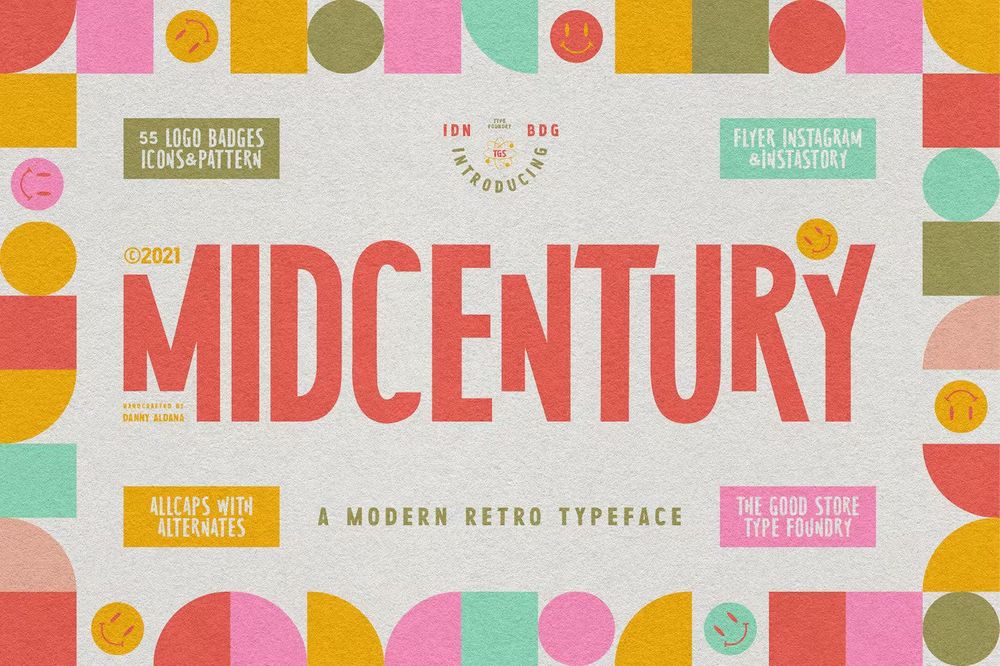
It is an allcaps modern mid-century display typeface that inspired by many graphic designs back in the 1950s. Ideal for posters, covers, flyers and other retro designs.
Citro – Sign Painter Typeface
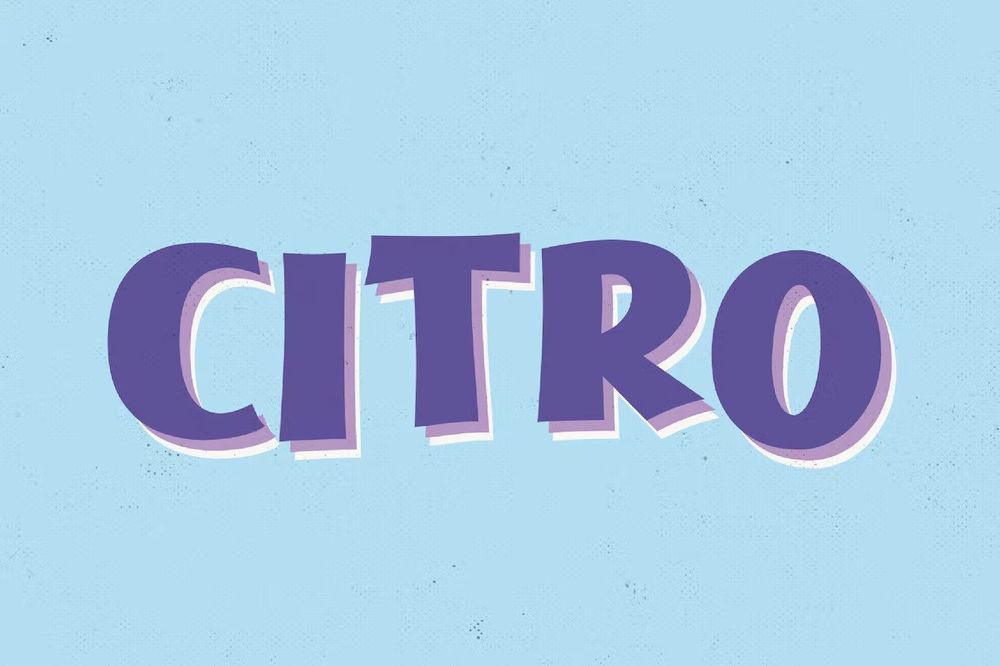
It is a bold typeface based on retro hand-painted paper signs primarily seen in grocery stores from the 1920s through the 1970s. Perfect for vintage-inspired and contemporary branding, marketing, packaging, and much more.
Fifties Typeface
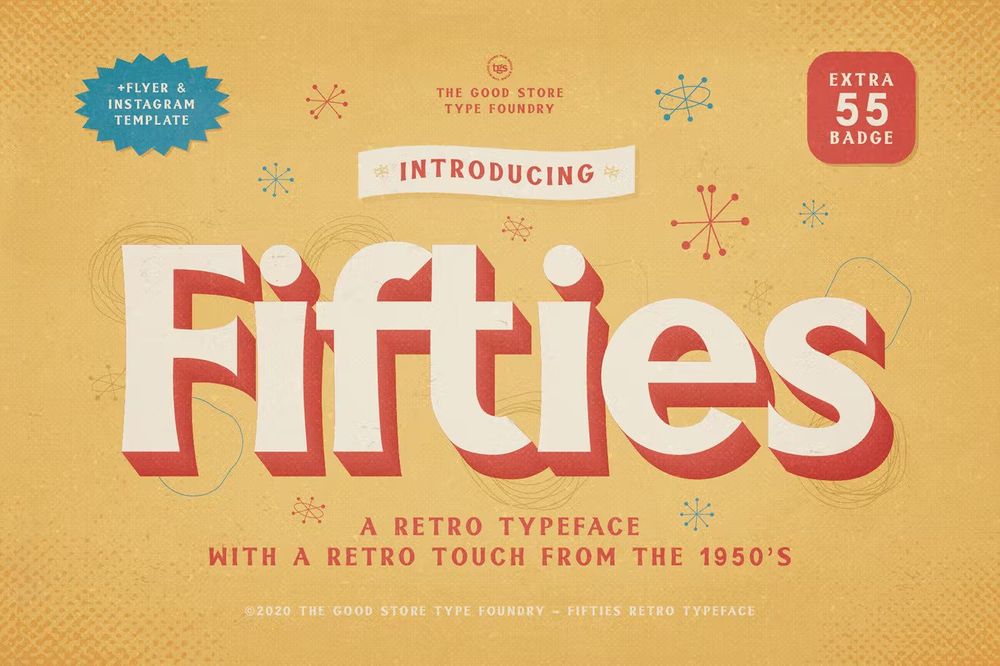
It is a retro serif display typeface that inspired by many vintage novel cover back from the 1950s. Best for headlings, titles, posters, covers, packaging and etc.
Boardley Script – Layered Font
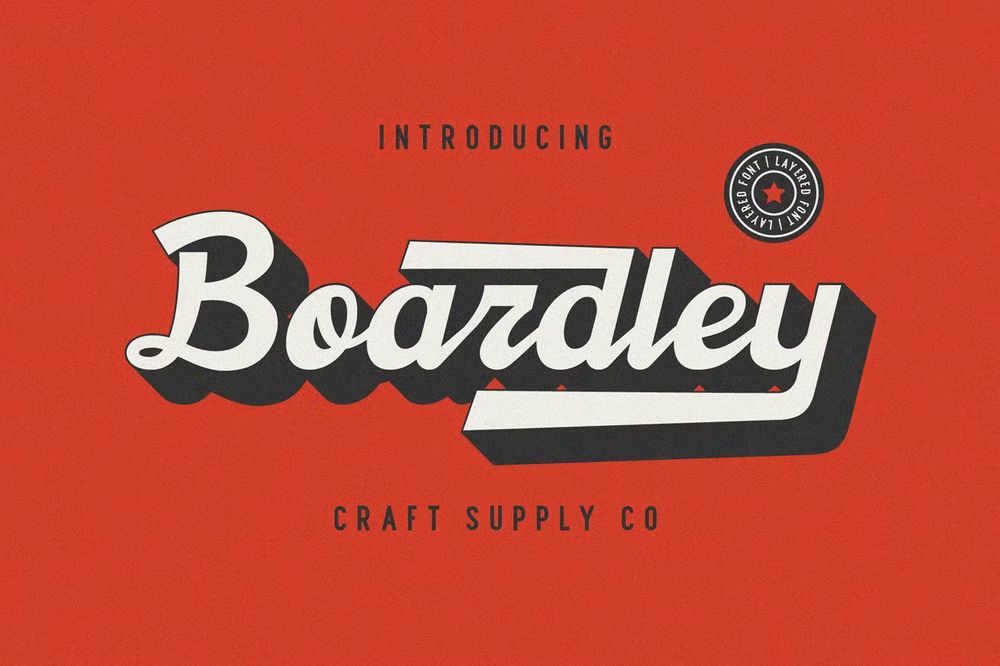
It is a script-style display font in two layers, Boardley Script was the result of an exploration of mid-century American and European bold script lettering for advertising. Use it for Logos, greeting cards, quotes, posters and etc.
Kole Gemols – Mid Century Modern Font
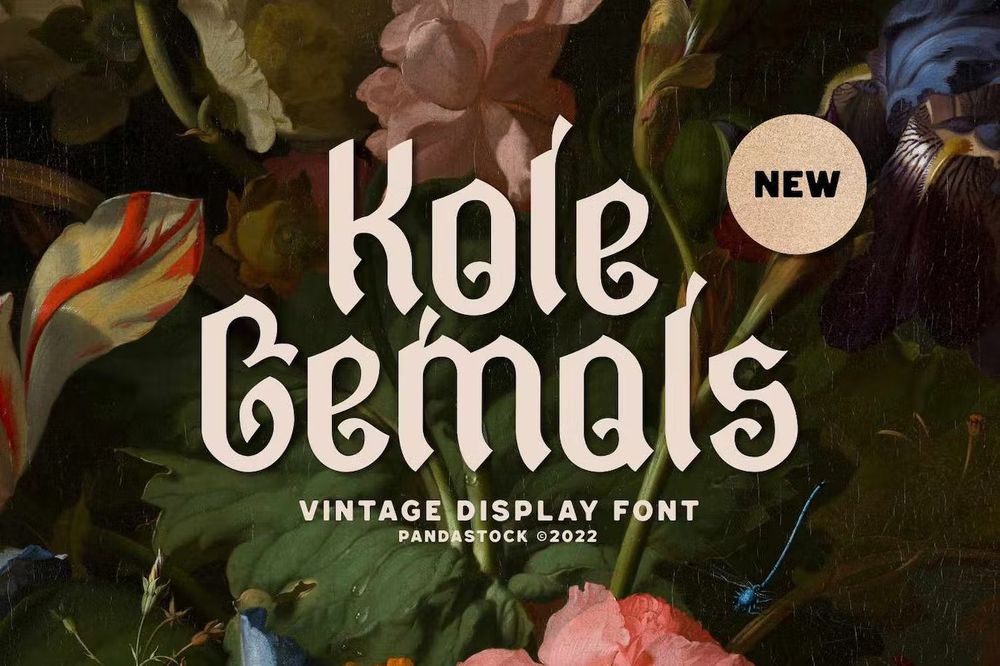
It is mid century modern font with visual elegance, smooth curves and beautiful ligatures clear, making your work look true and attractive. Suitable for a wide variety of projects such as invitations, logos, branding, magazines and etc.
Juvenile Typeface
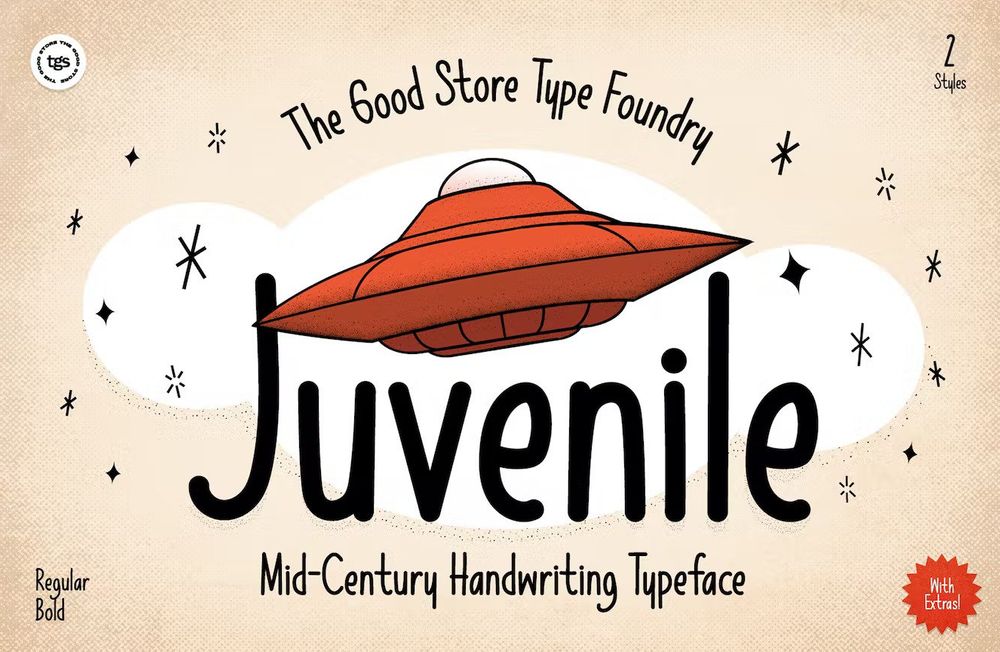
A mid-century handwriting display typeface that comes in regular & bold styles. Ideal for book covers, posters, lettering, advertisement, packaging and etc.
Lam Lagang 051 Typeface
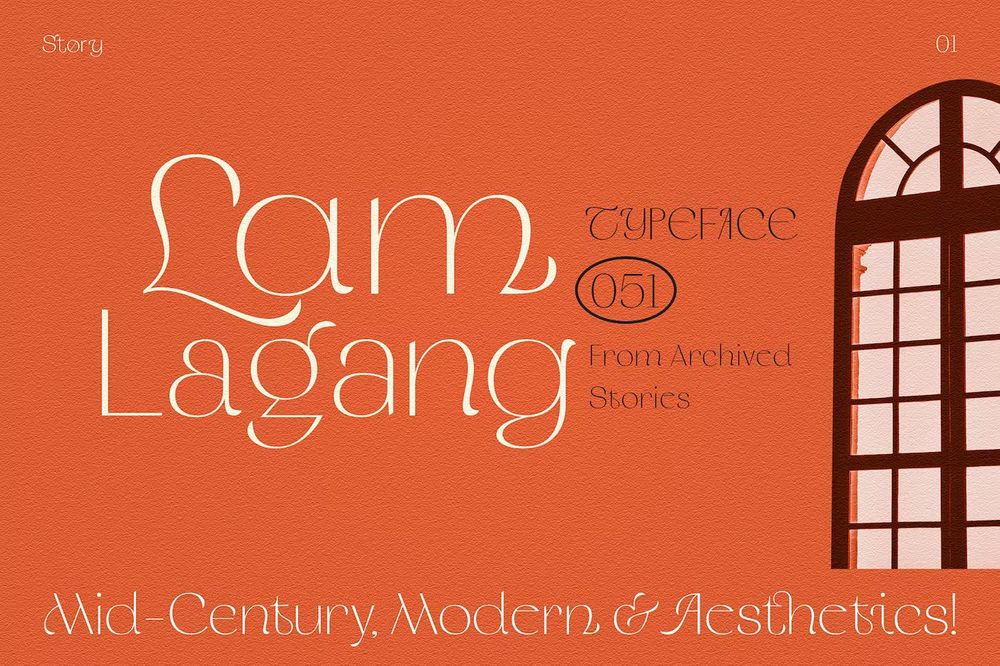
It is a sans serif contemporary font with mid-century, modern & aesthetics style. Ideal for wedding invitations, postcards, posters, covers and etc.
Merisk – Modern Vintage Font
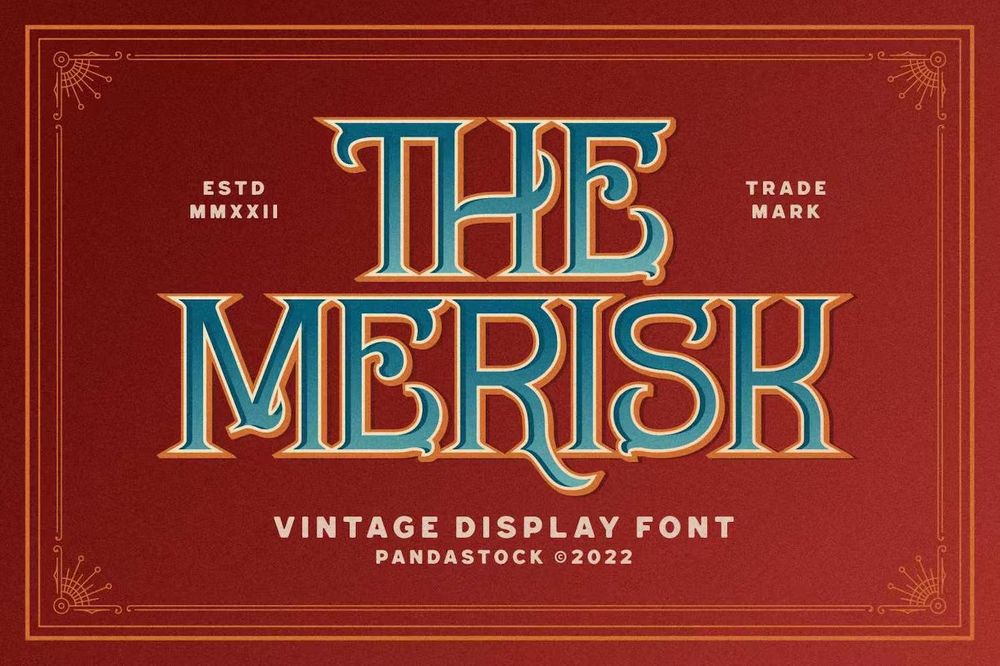
It is modern vintage font with visual elegance, smooth curves and beautiful ligatures clear, making your work look true and attractive. Best for invitations, logos, branding, magazines, photography, cards and etc.
Bvenaztre Font
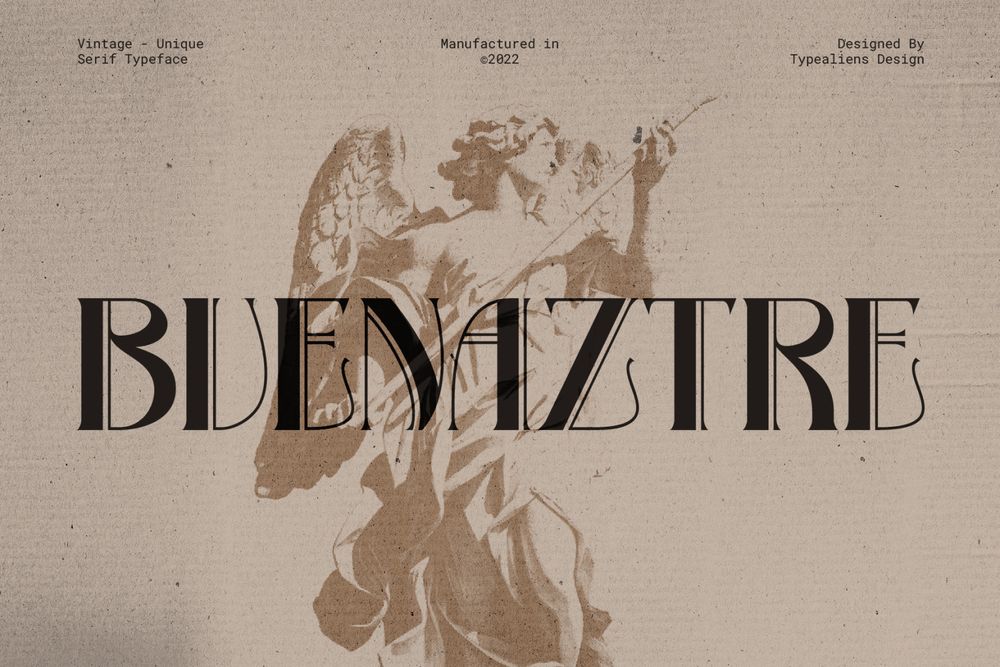
It is a basic serif font, which was modified into an art deco font that looks vintage and classic. With the art deco style, it is very suitable for art-style designs.
Chevante Font
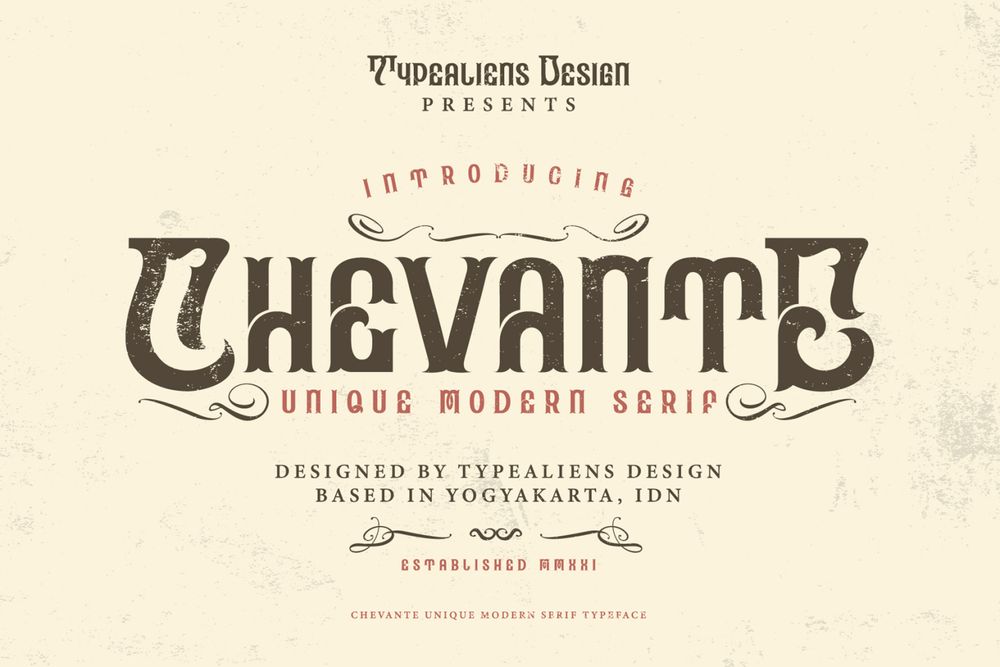
It is a display font based on serif fonts with minimalistic hooks. With a vintage style so that it will make the design or logo you create have a classic and retro impression.
Free Carosello Vintage Font
It’s a free vintage font so good for poscards, invitations, posters, flyers, covers and etc.
Free The West Side Font
It’s a minimalist mid-century free font for your designs such as quates, posters, covers, flyers and etc.
Free Yesteryear Font
A cool and free mid-century script font for all your design needs such as invitations, cards, covers and etc.
Wornout Typeface
It is a retro serif display typeface that greatly Influenced by many poster & novel cover back from the 1900s.
Palm Canyon Drive
It is a monoline script font inspired by retro matchbook covers, travel postcards, tiki bars, and Hollywood.
Hanno Mid Century Modern Sans Serif
It is a geometric mid century modern sans serif font that works well for big bold headlines on posters, as well as small body copy.
Display Gothic 1958 Font
A faithful reproduction of a classic pen and ink typeface from the 1950s, this 400+ character font is perfect for headlines and display type. It is bold, condensed, and ready to tackle your vintage needs.
Tipique / Mid-Century Font Revival
It is a carefully crafted revival of an early 1930s sans which was itself designed in the spirit of geometric Bauhaus typefaces. Suitable for titles, book covers, vintage invitations, posters and etc.
Smooth Berry / Playful Retro Font
A playful retro font. It’s inspired by a fabulous mid-century design, but also can be easily used in a modern context. A great fit for beautiful headers, cozy event posters and etc.
Telly – Mid-Century Script Font
It is an elegant, casual and upright script font with clean strokes and fun character. Perfect for logos, badges, posters, typography and any retro design needs.
VVDS Halau Serif Font